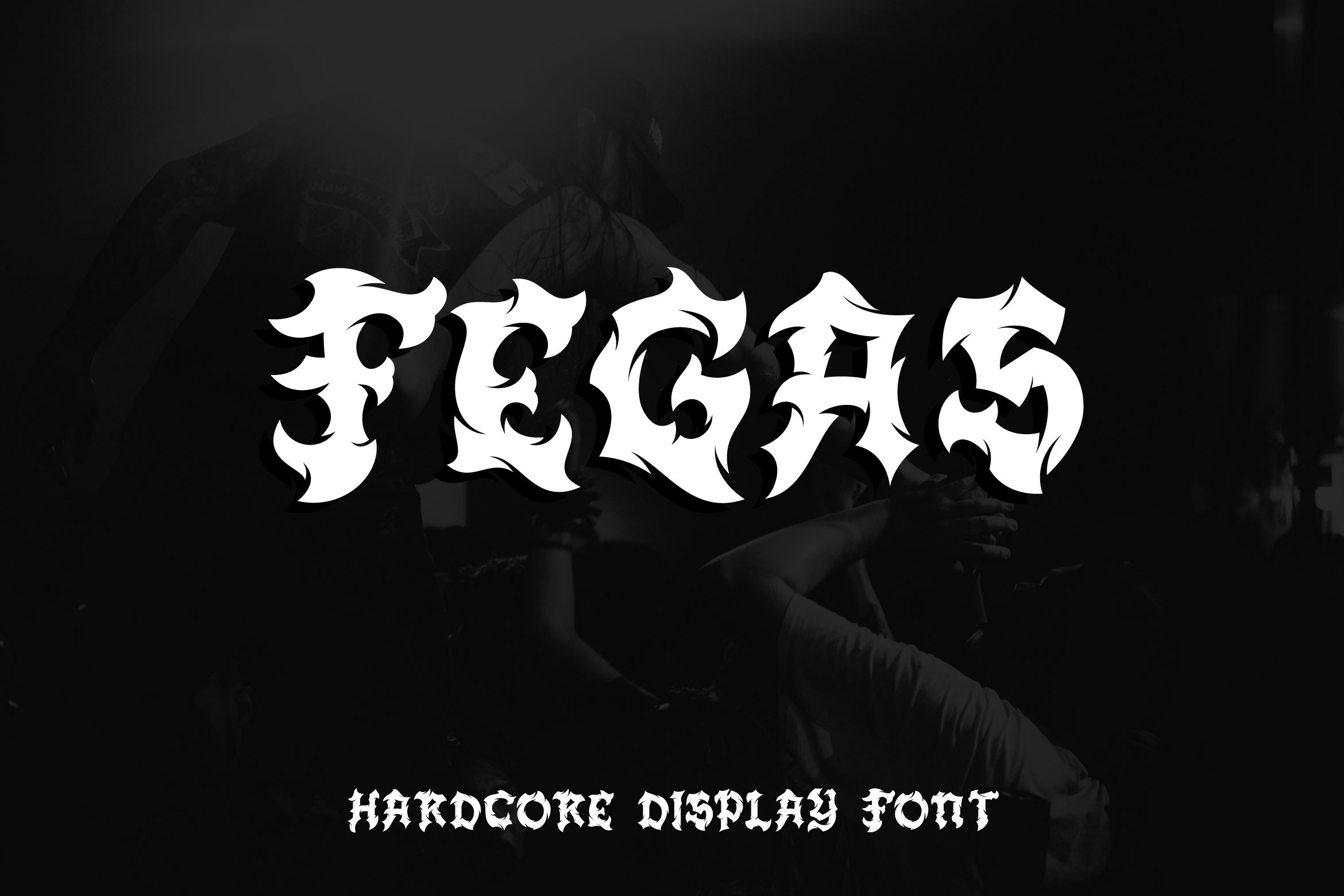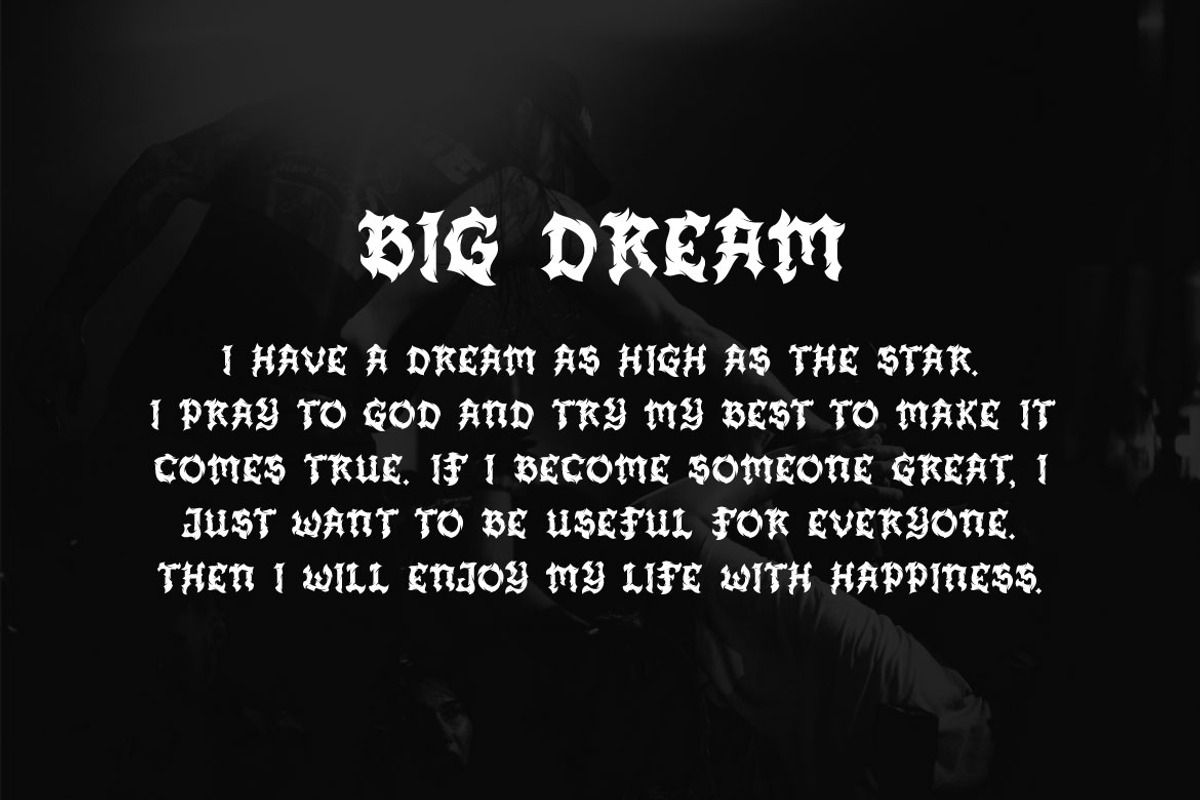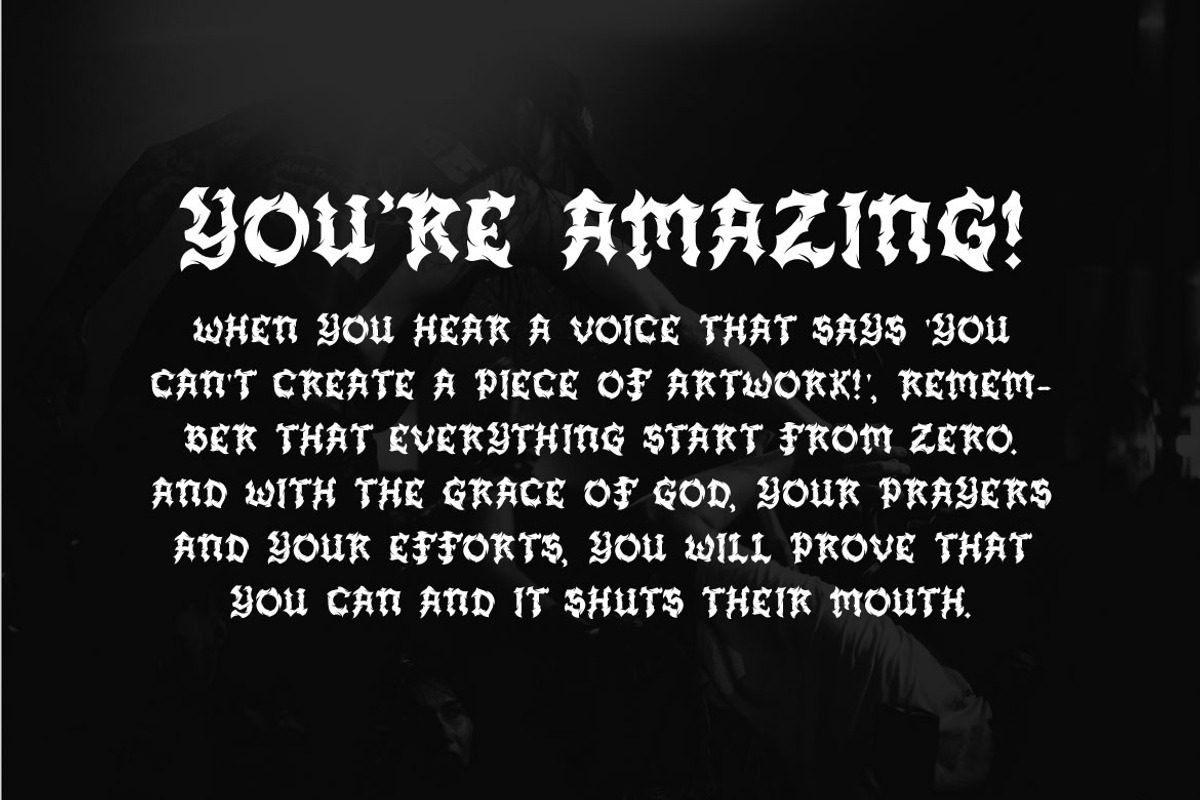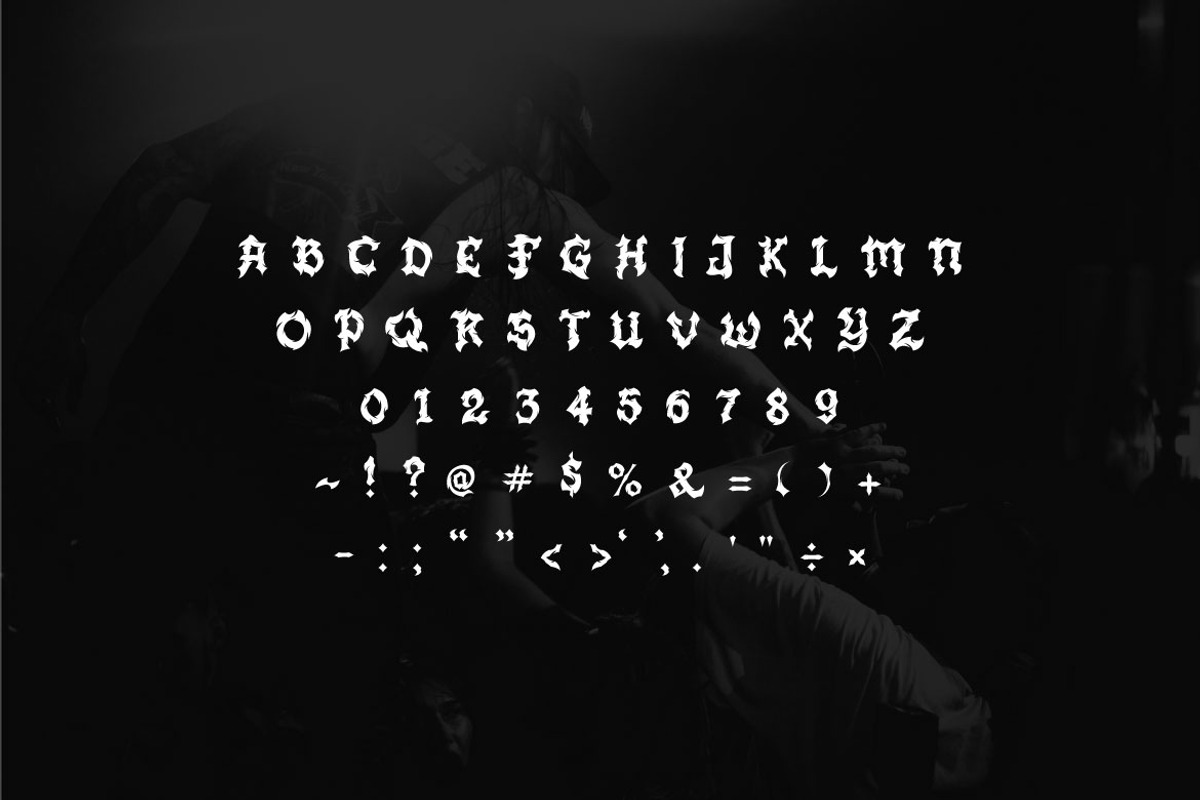
Fegas - Blackletter Font
Feel the hardcore vibe of FEGAS, a decorative blackletter display font. This font is suitable for Halloween event, comic, flyer, poster, banner, movie title, book cover, card, merchandise, etc. Try this font and ready to scream!